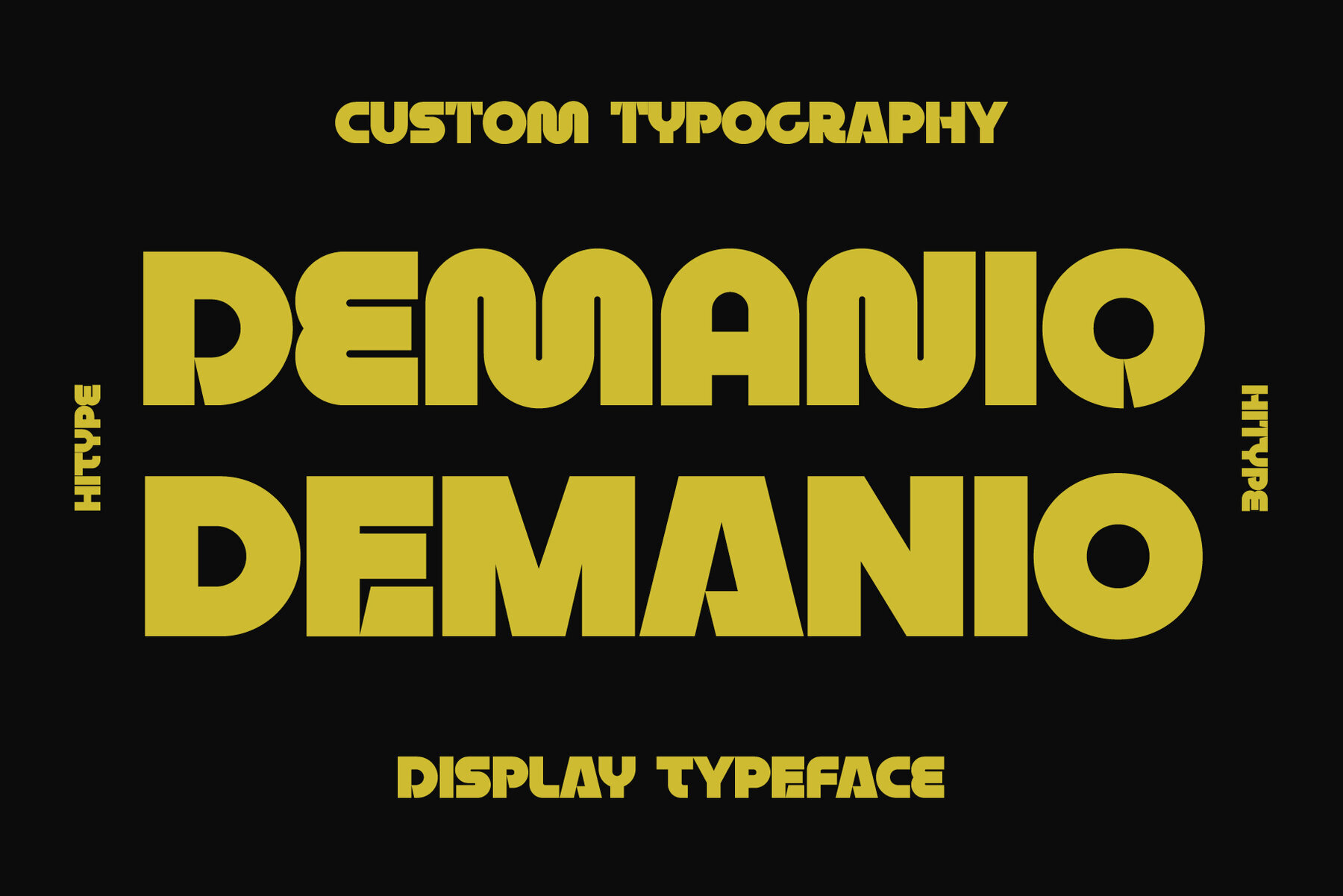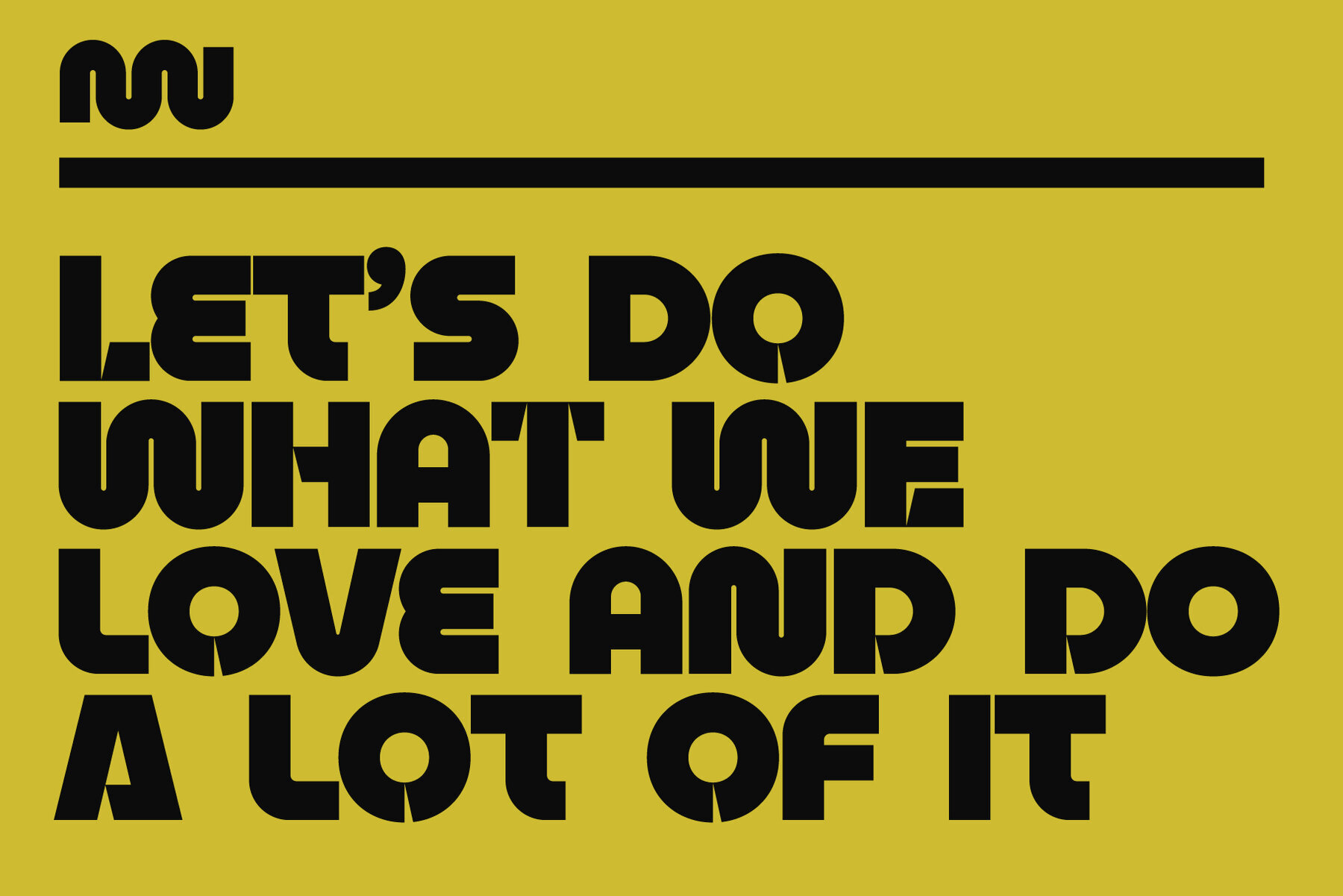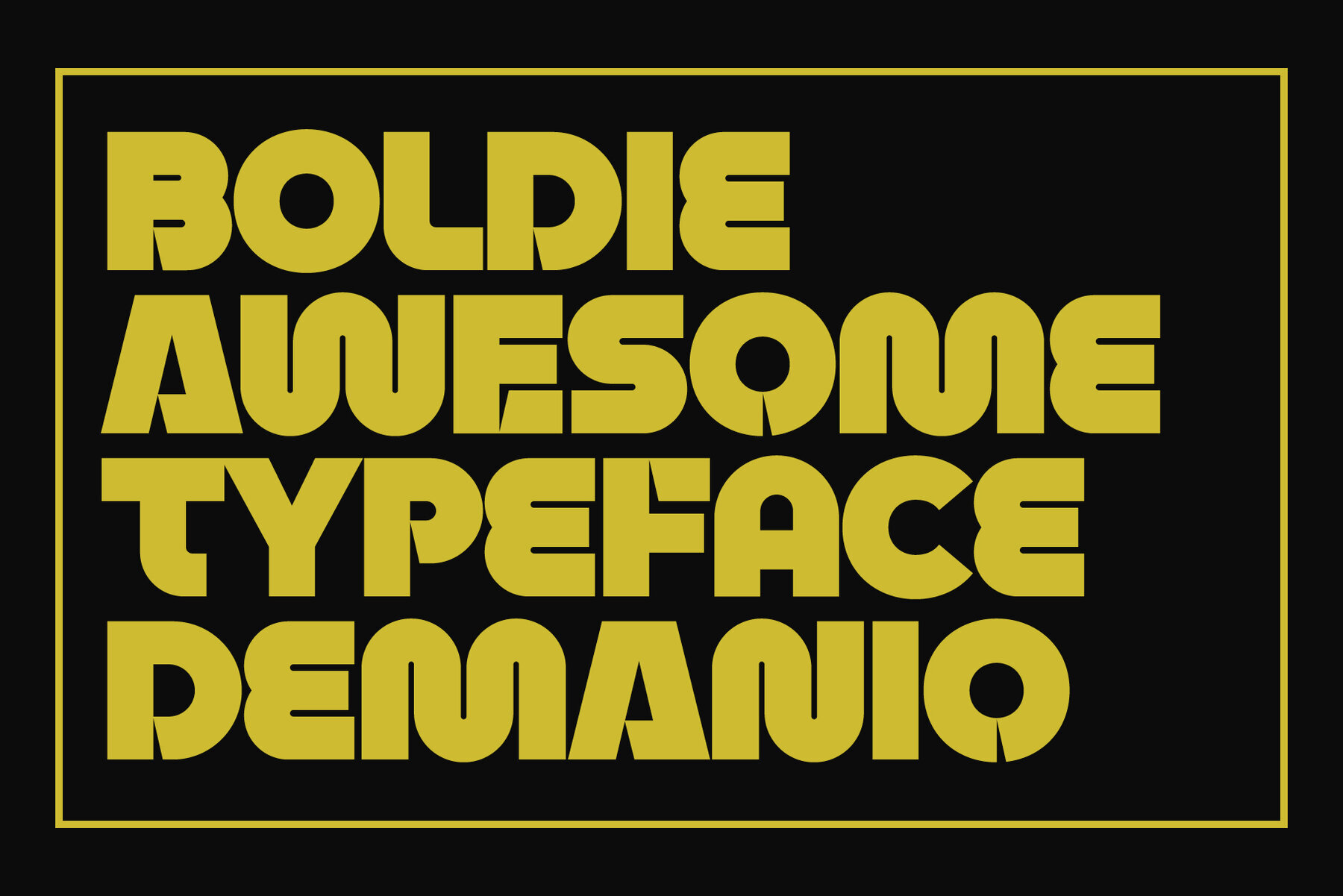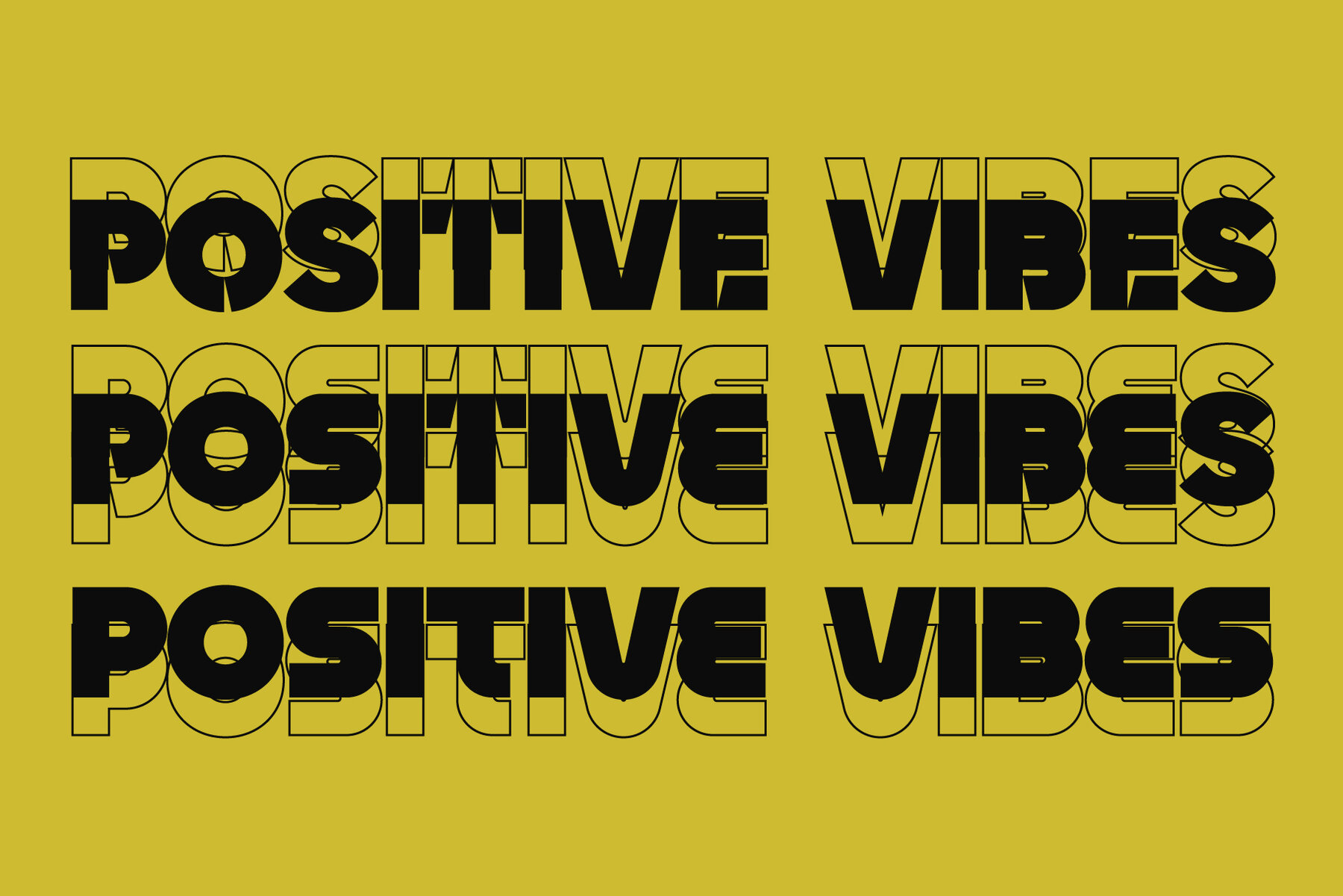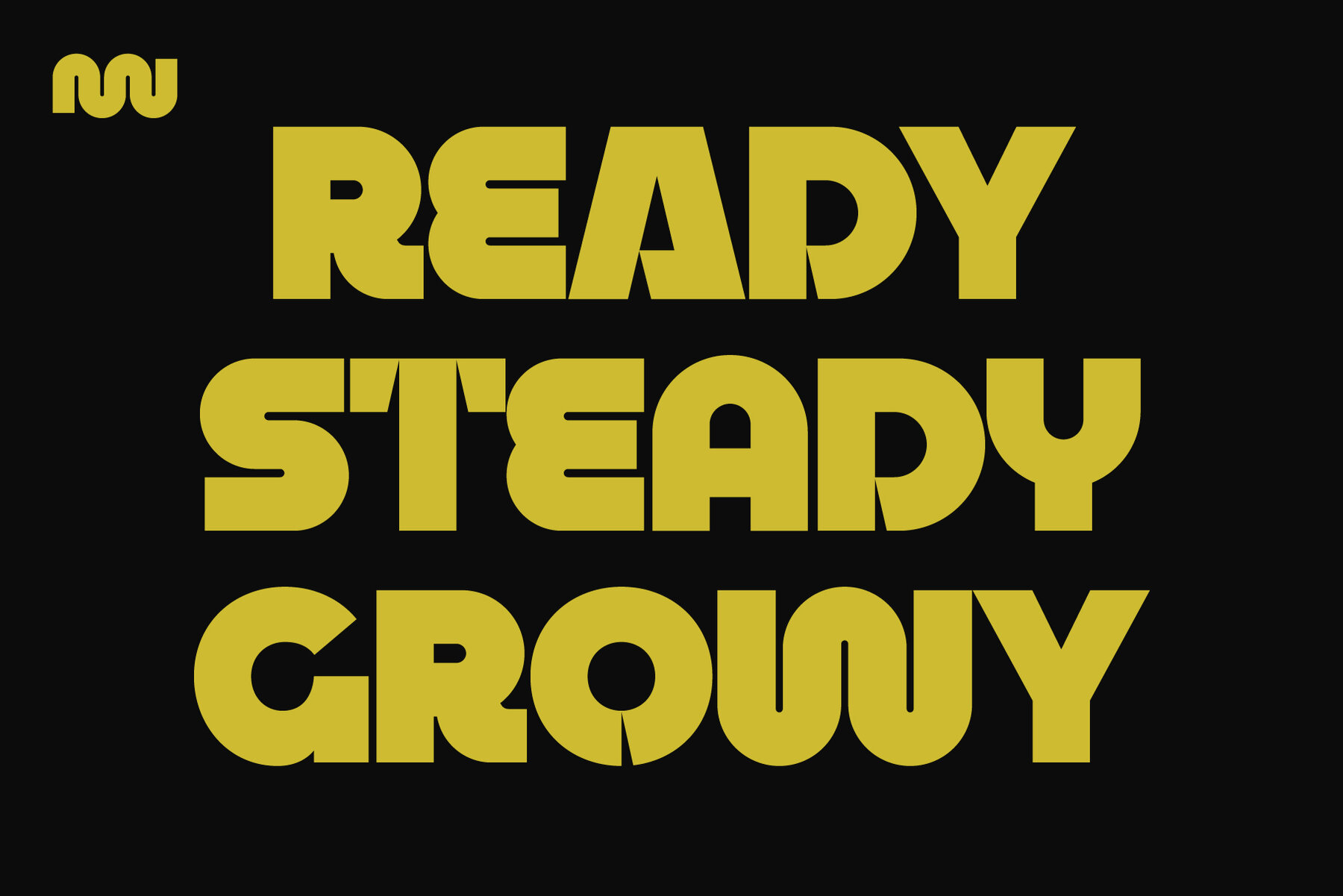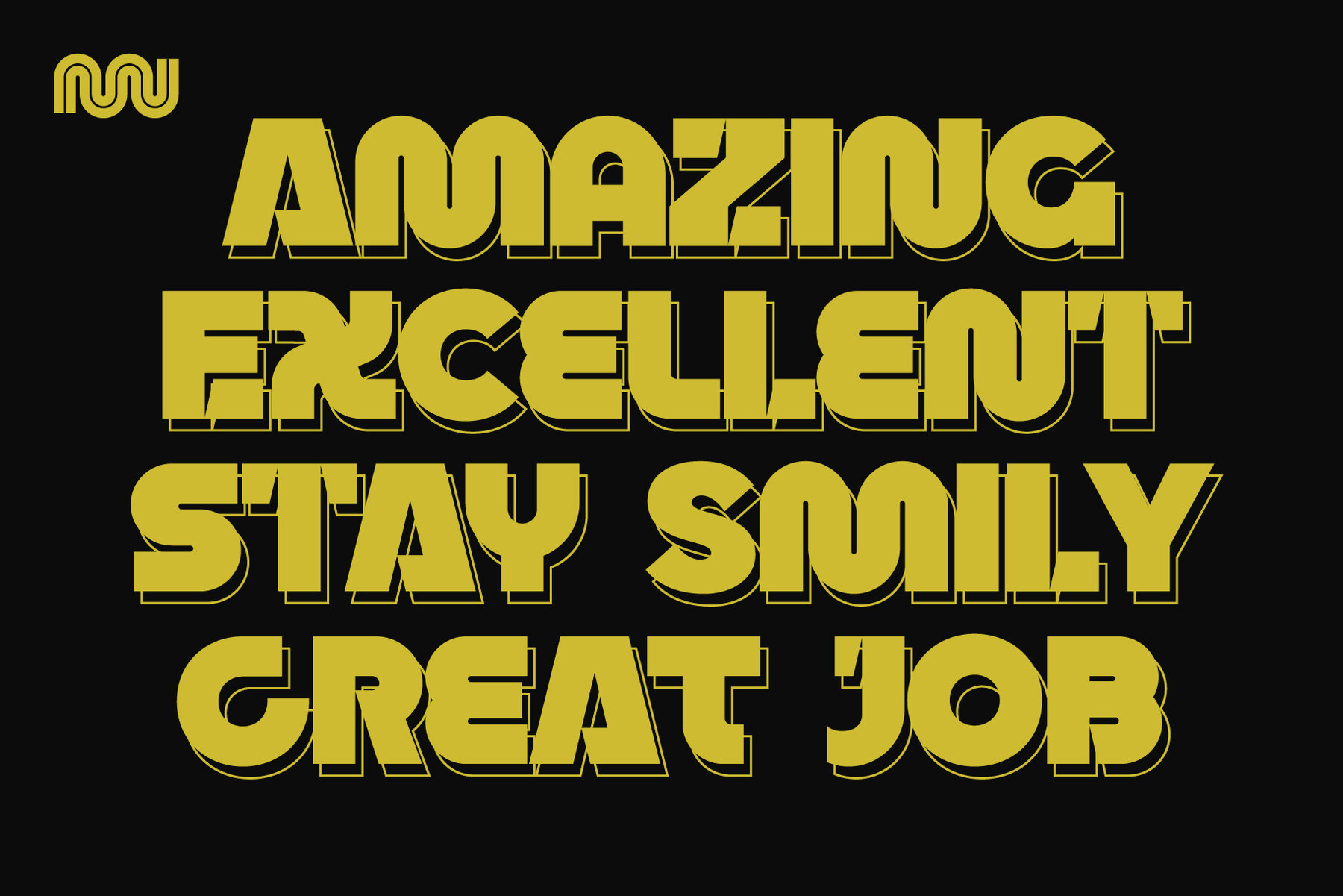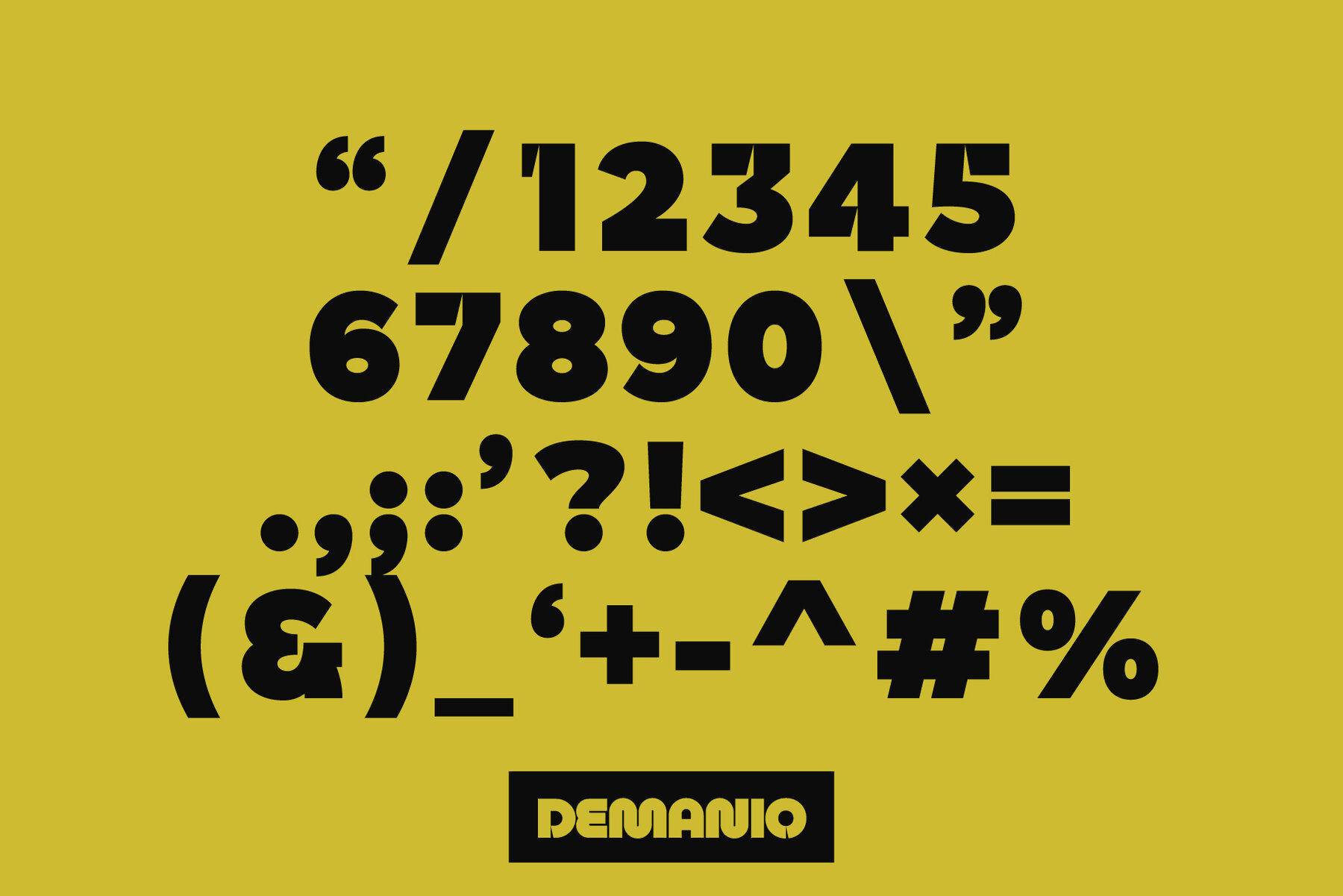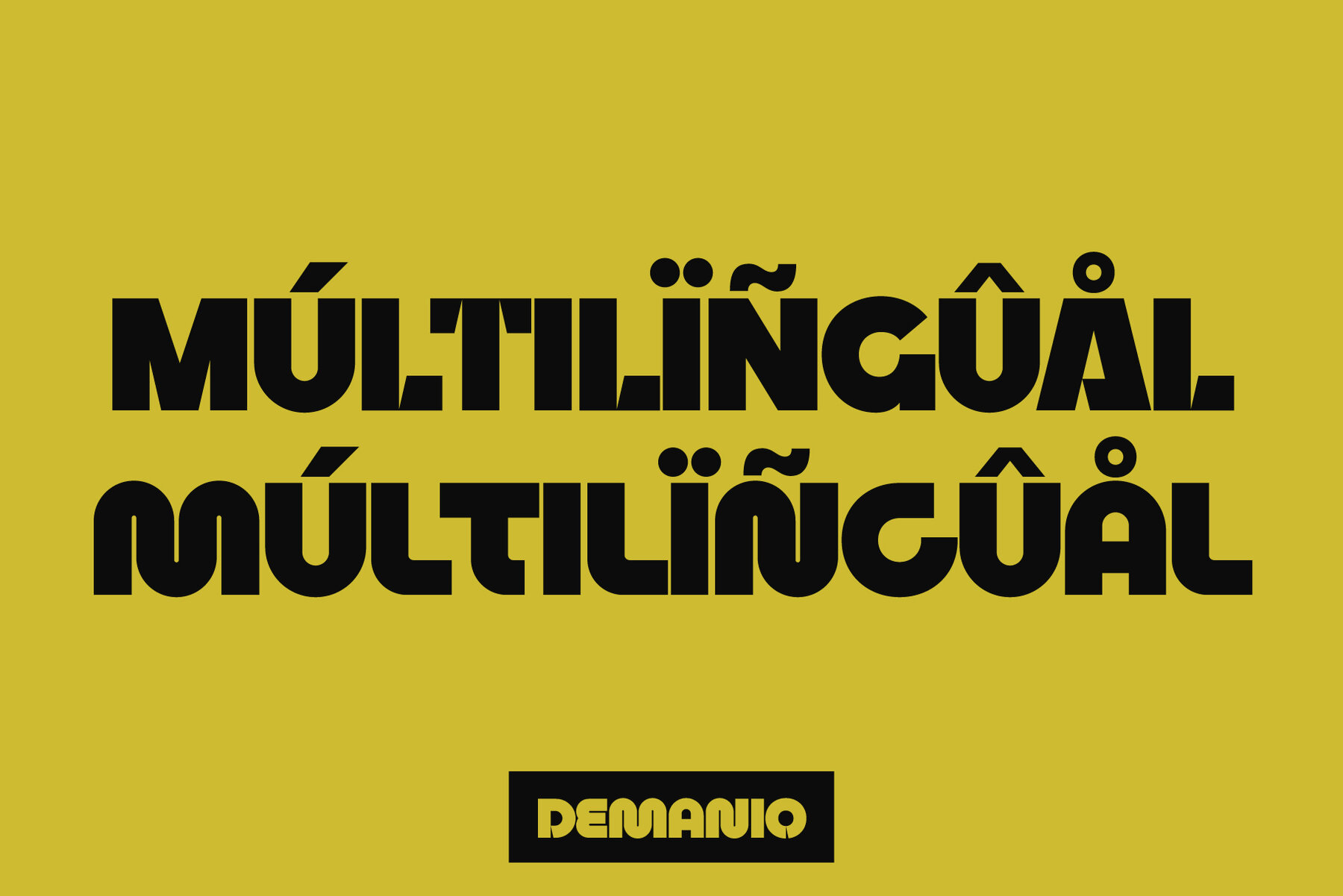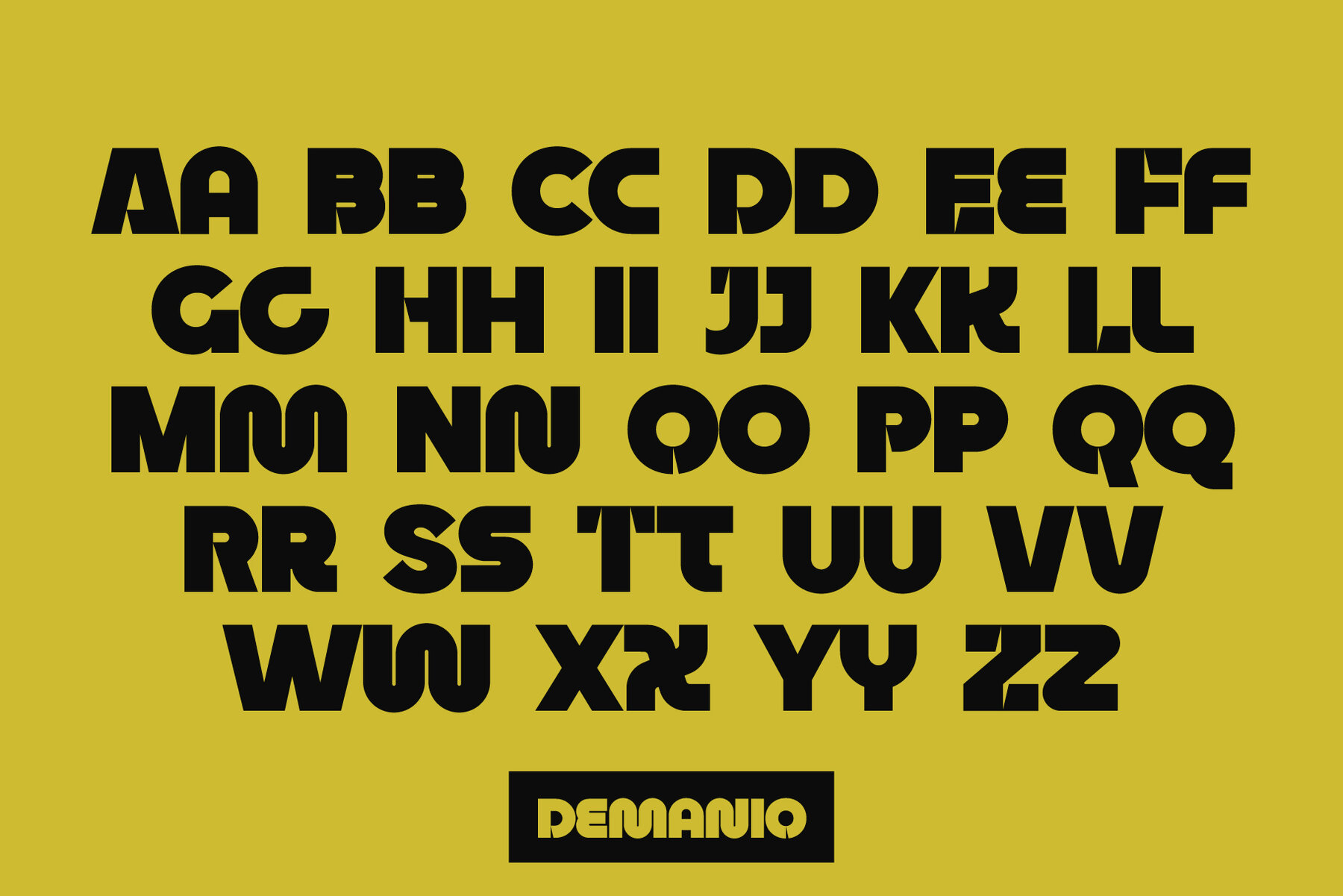
Demanio
Demanio is a striking geometric display typeface with a modern twist that exudes innovation and style. Its exceptional architecture allows for creative play between uppercase and lowercase letters, enabling you to craft dynamic typographic designs effortlessly. Ideal for logos, posters, packaging, headlines, and branding, Demanio adds a bold, contemporary edge to any project with its robust character and versatile appeal.Demanio Typeface: Bold and Futuristic Design